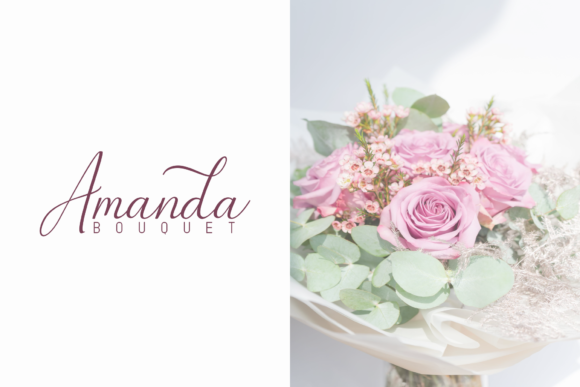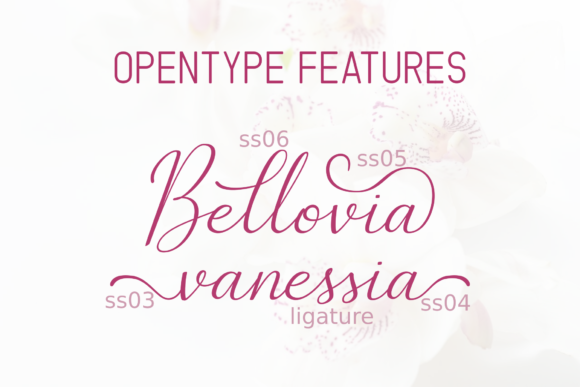
The Bellovia Duo Font
db-ku.com - Script & Handwritten -- The Bellovia is a beautiful font duo with a pair of elegant typefaces which consist of a script and sans serif font. The beautiful script and the rounded sans serif perfectly match and bring a luxury and classy feeling to your design.